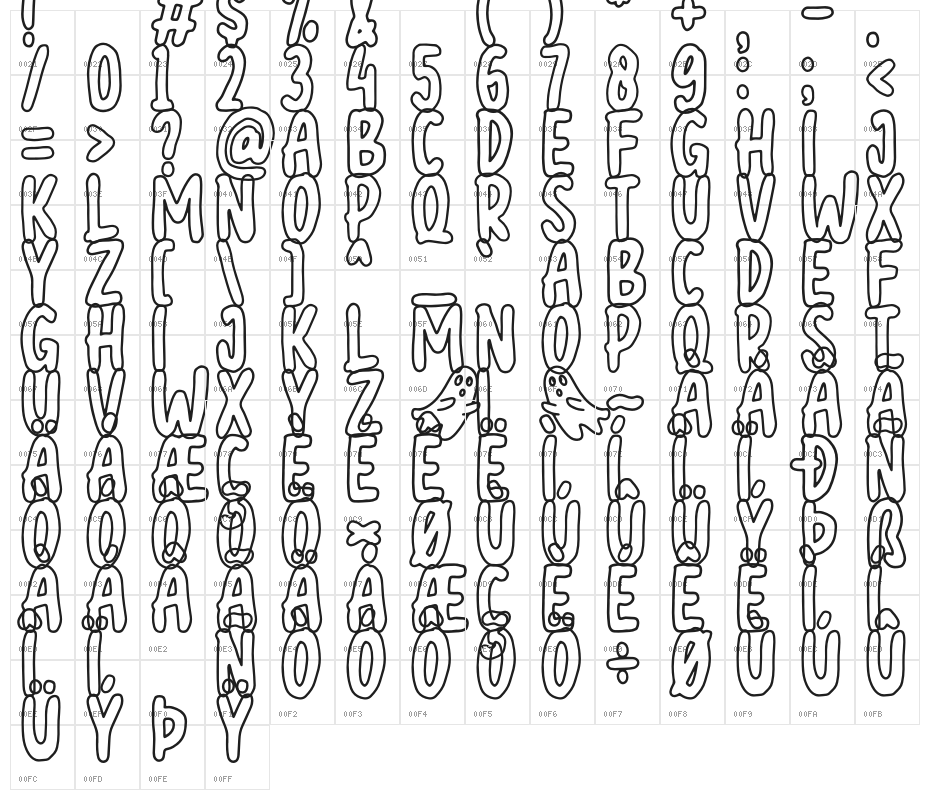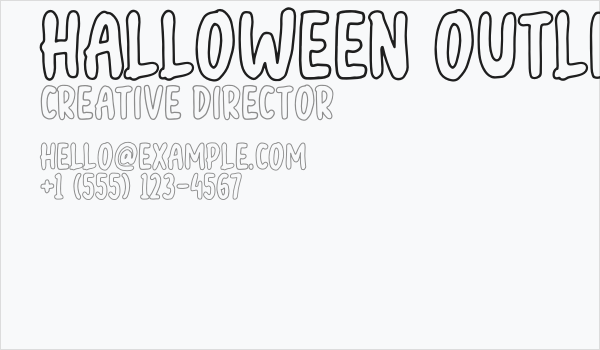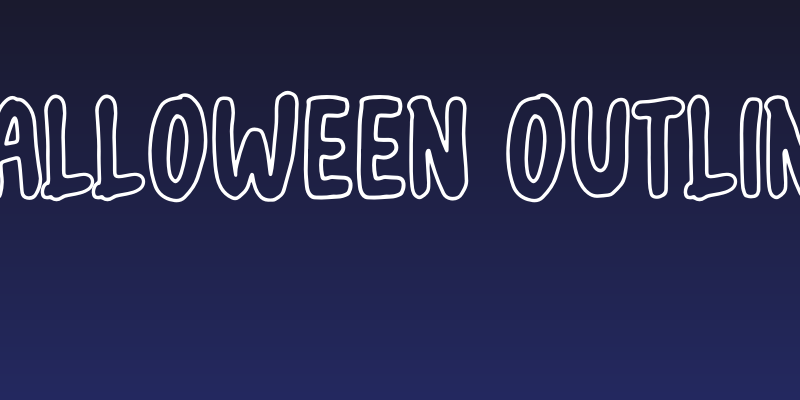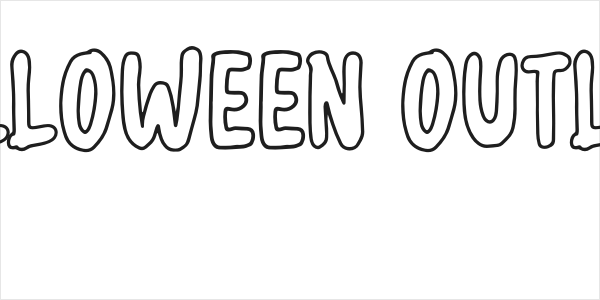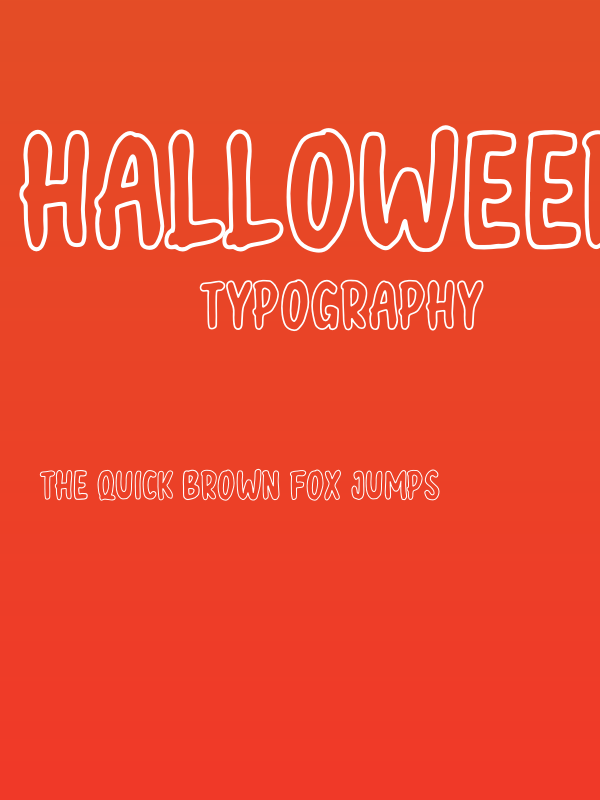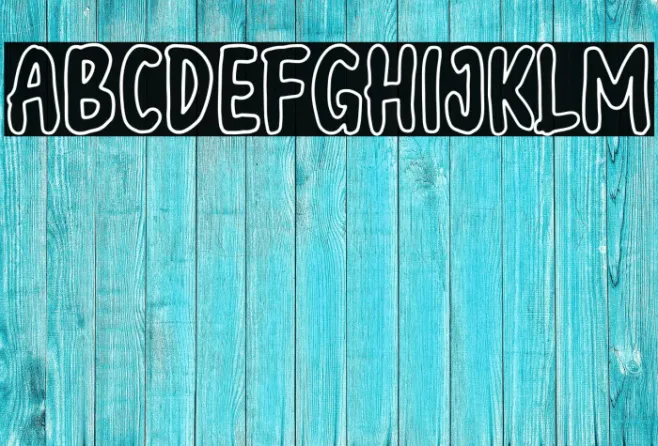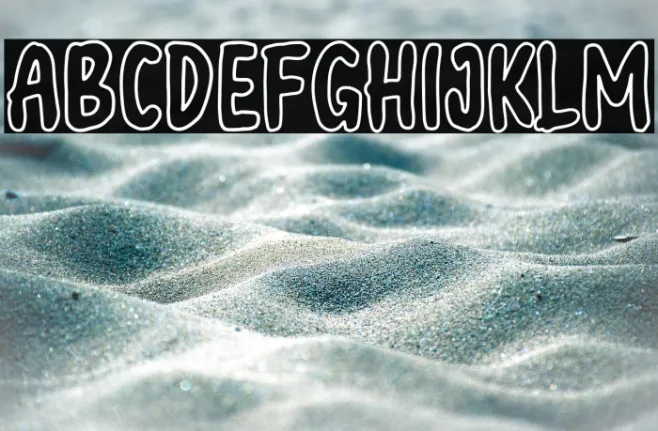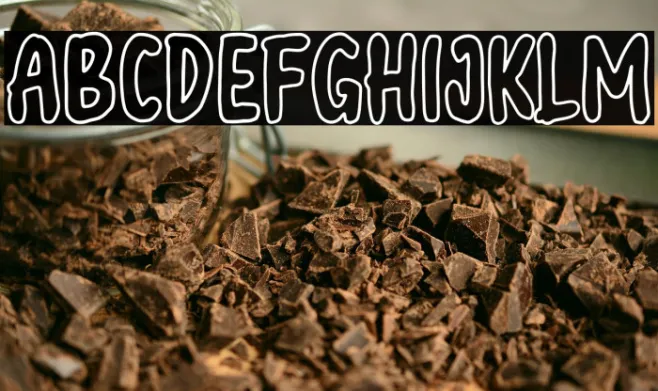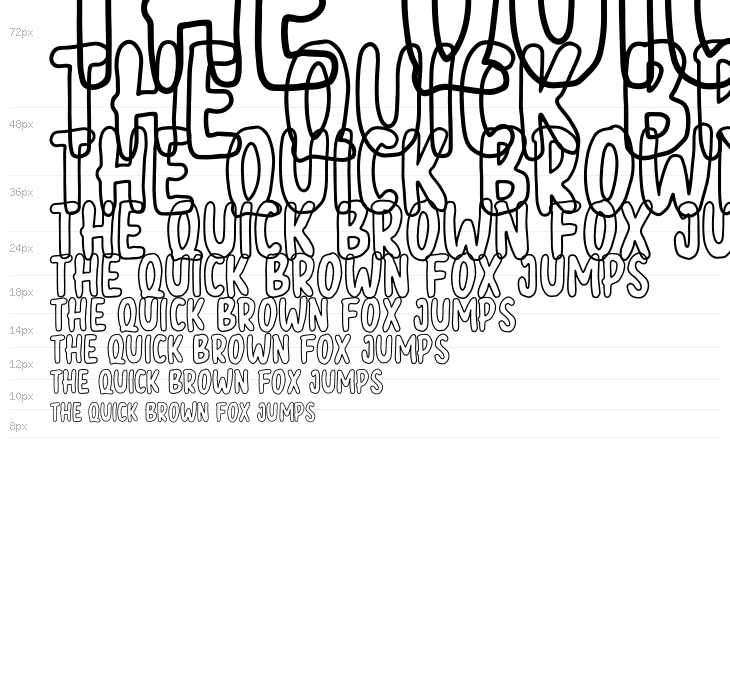
Halloween outline Font
Halloween outline Description
This playful and bold font features an outline style that gives it a fun and whimsical appearance. The characters are rounded and slightly irregular, adding to the casual and informal feel. The uppercase and lowercase letters maintain a consistent style, with a hand-drawn look that is both approachable and lively. The numbers and special characters follow the same design, ensuring a cohesive appearance across all glyphs. This font is perfect for projects that require a touch of humor and creativity, making it ideal for festive occasions, especially Halloween-themed designs.
| Overall Style | Playful, Whimsical, Fun |
| Use Case | Headlines, Posters, Invitations |
| Proposed Projects | Ideal for Halloween-themed designs, children's books, party invitations, and playful branding. |